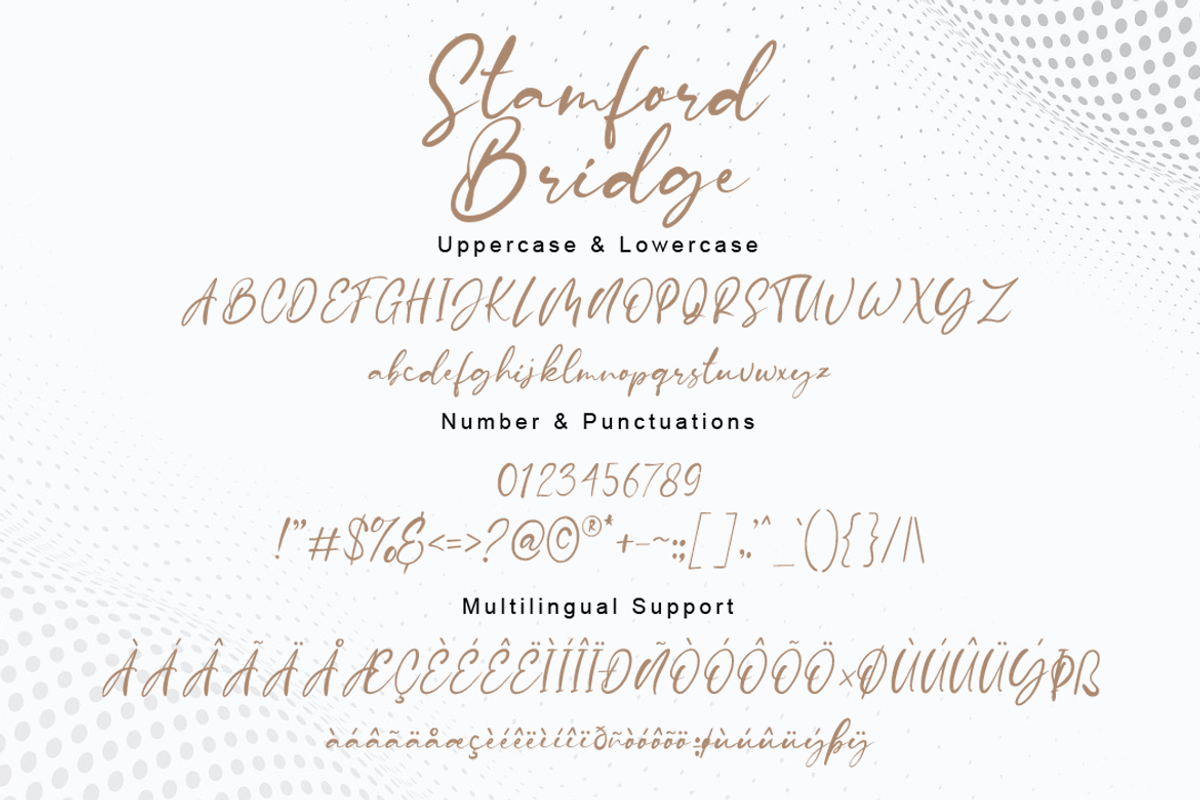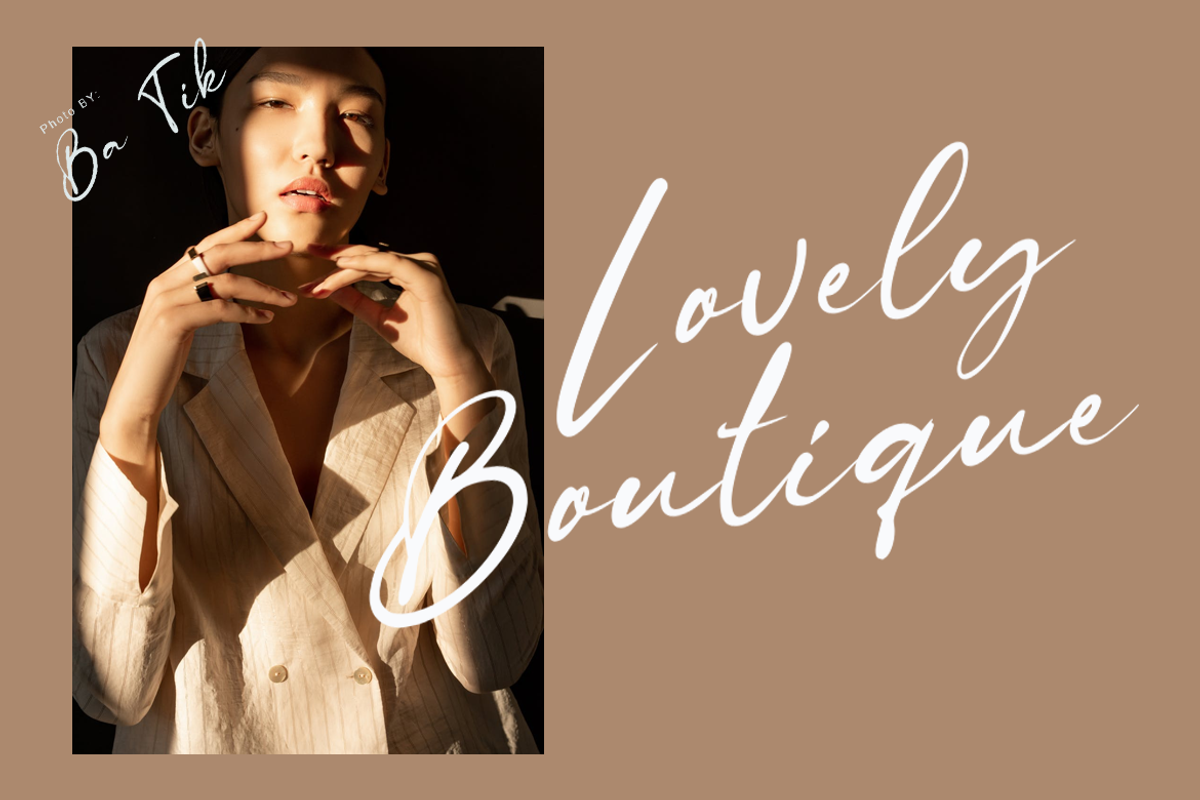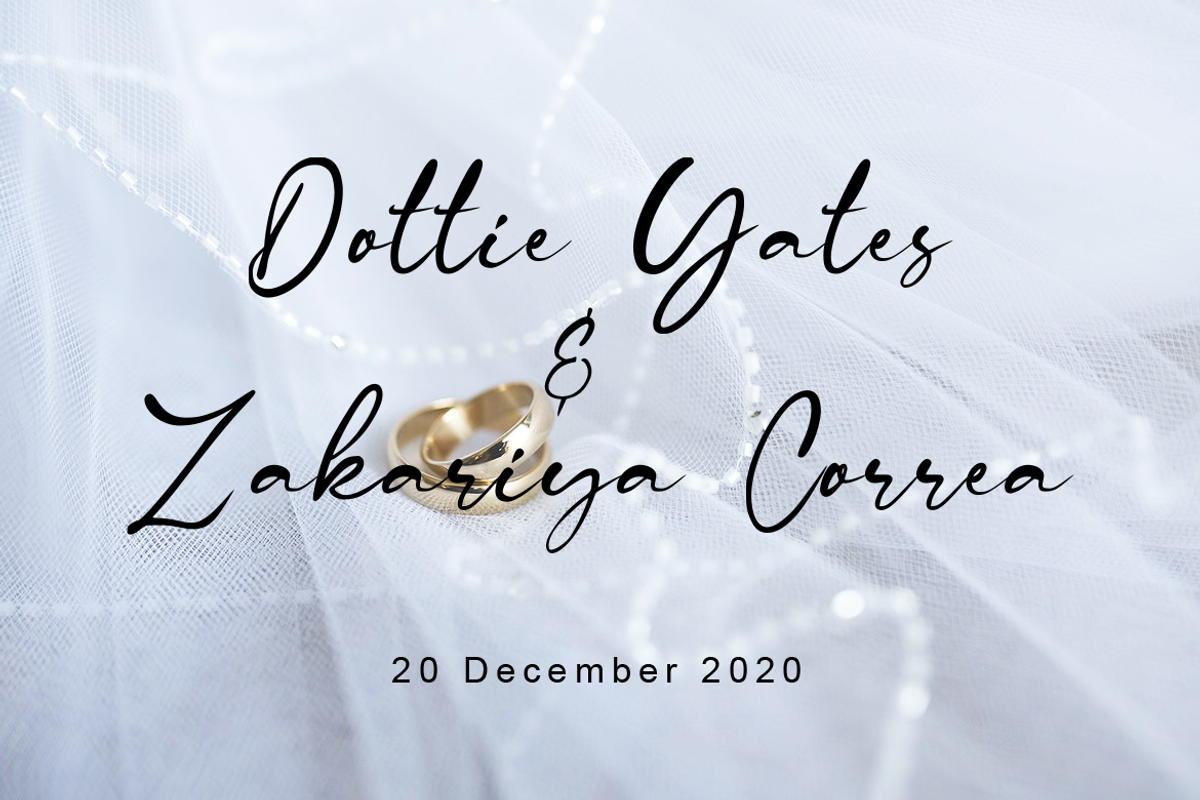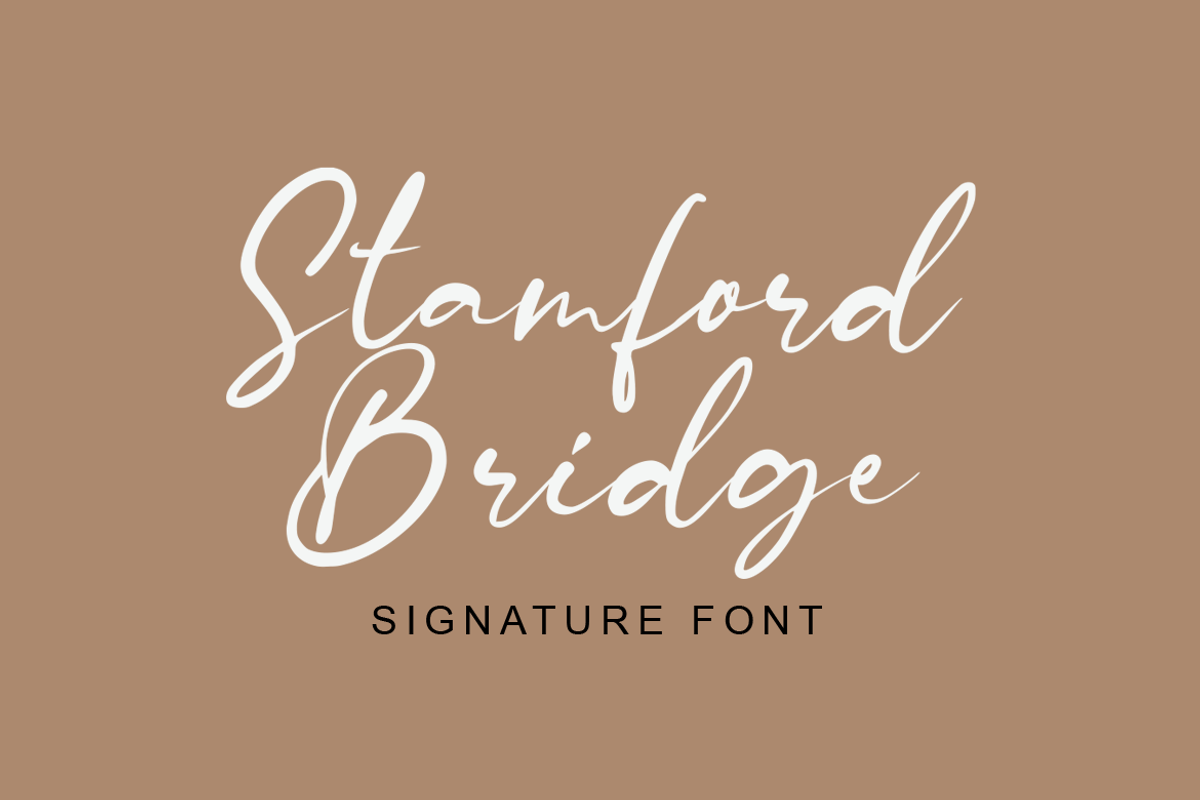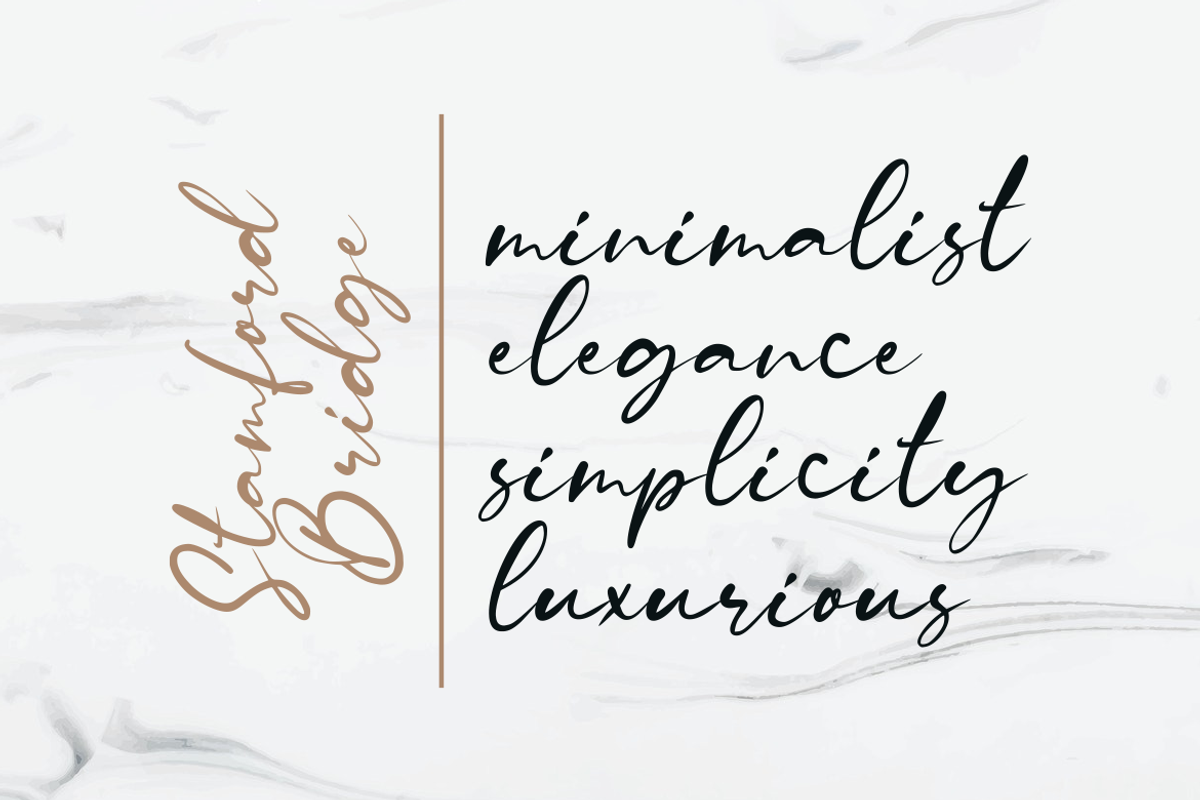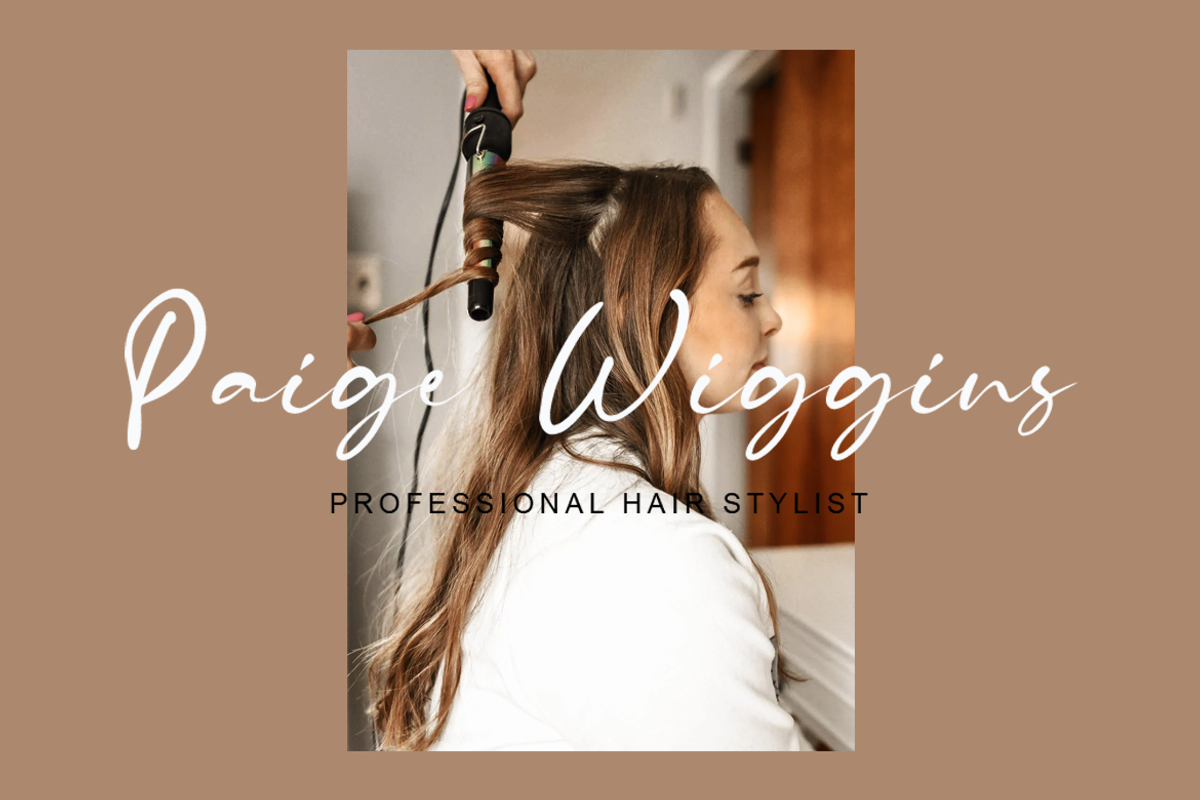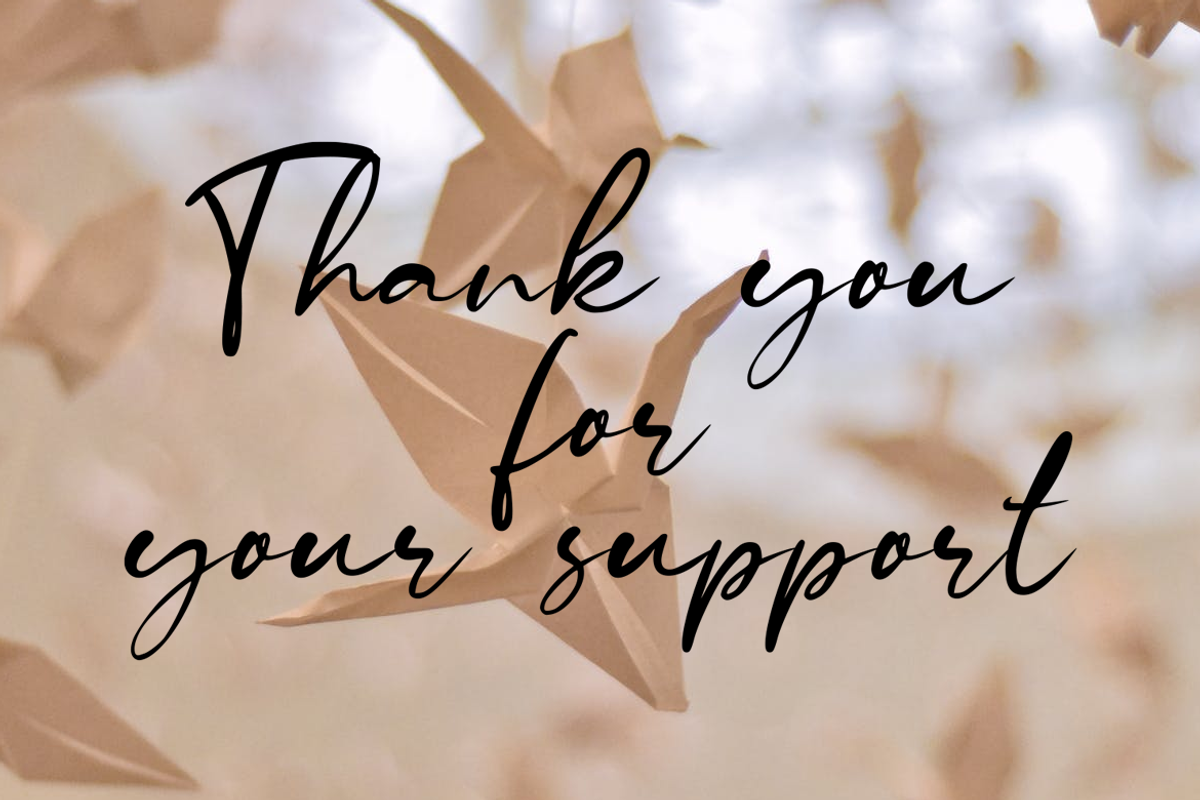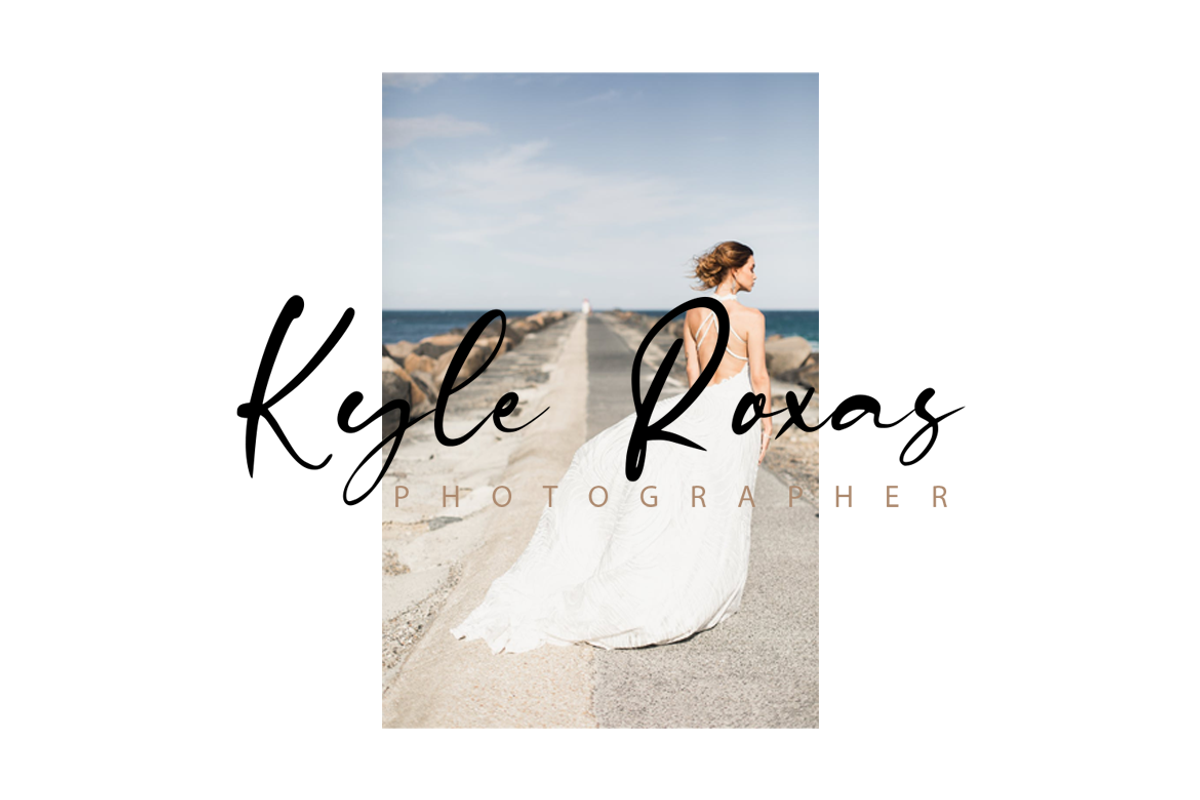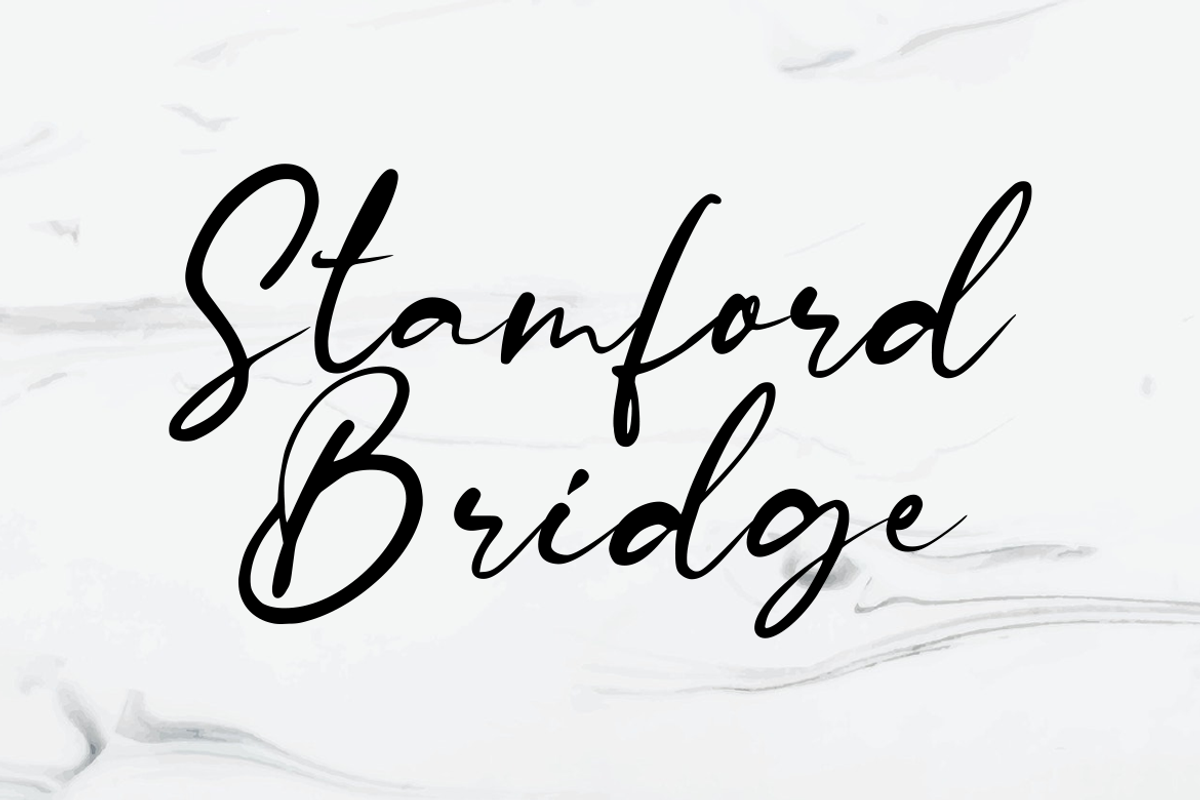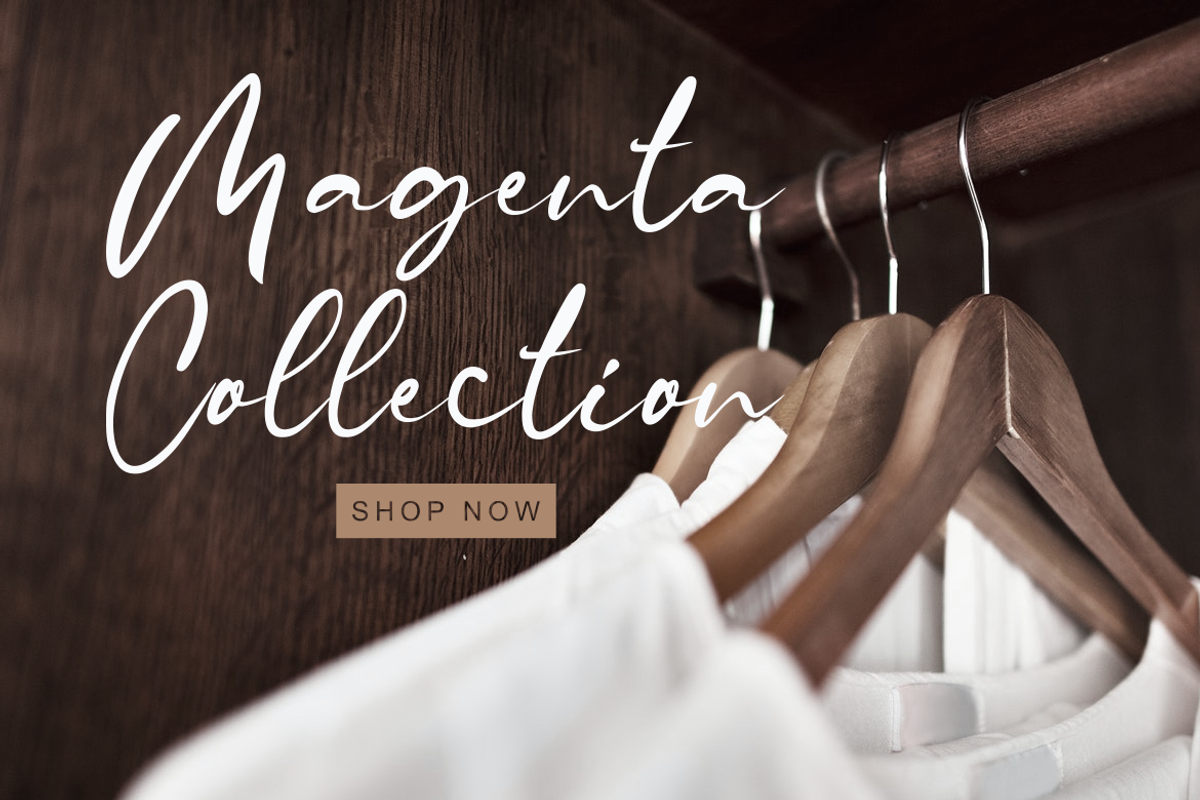
Stamford Bridge Signature Font
Introducing our latest product Stamford Bridge signature font.
Stamford Bridge is made to resemble hand scratches, so it looks like a natural style like your own hand scratches.
Stamford Bridge offer beautiful typographic harmony for a variety of design projects, including watermark, logos, branding, wedding designs, social media posts, advertisements, product designs, magazines and others.